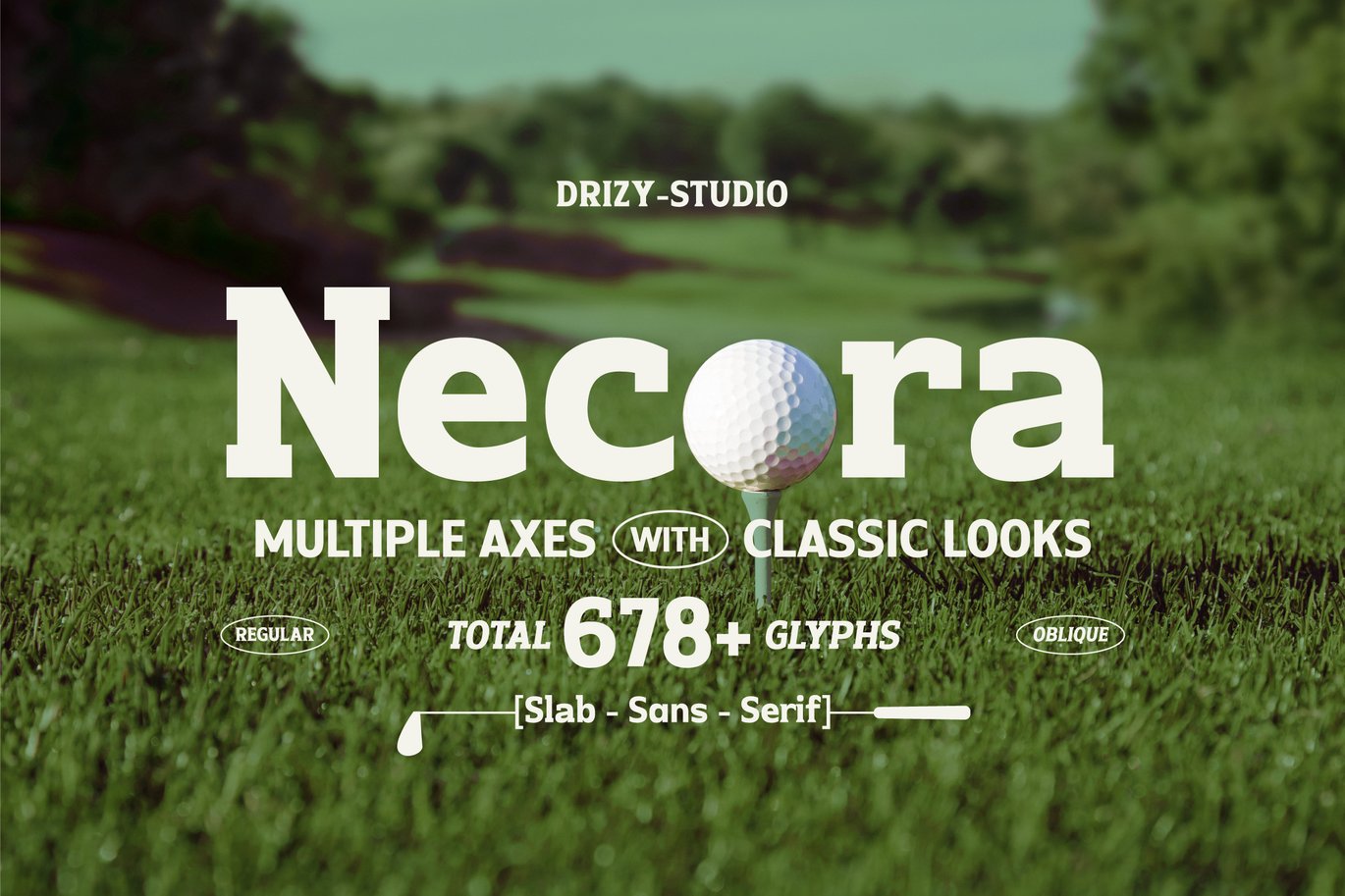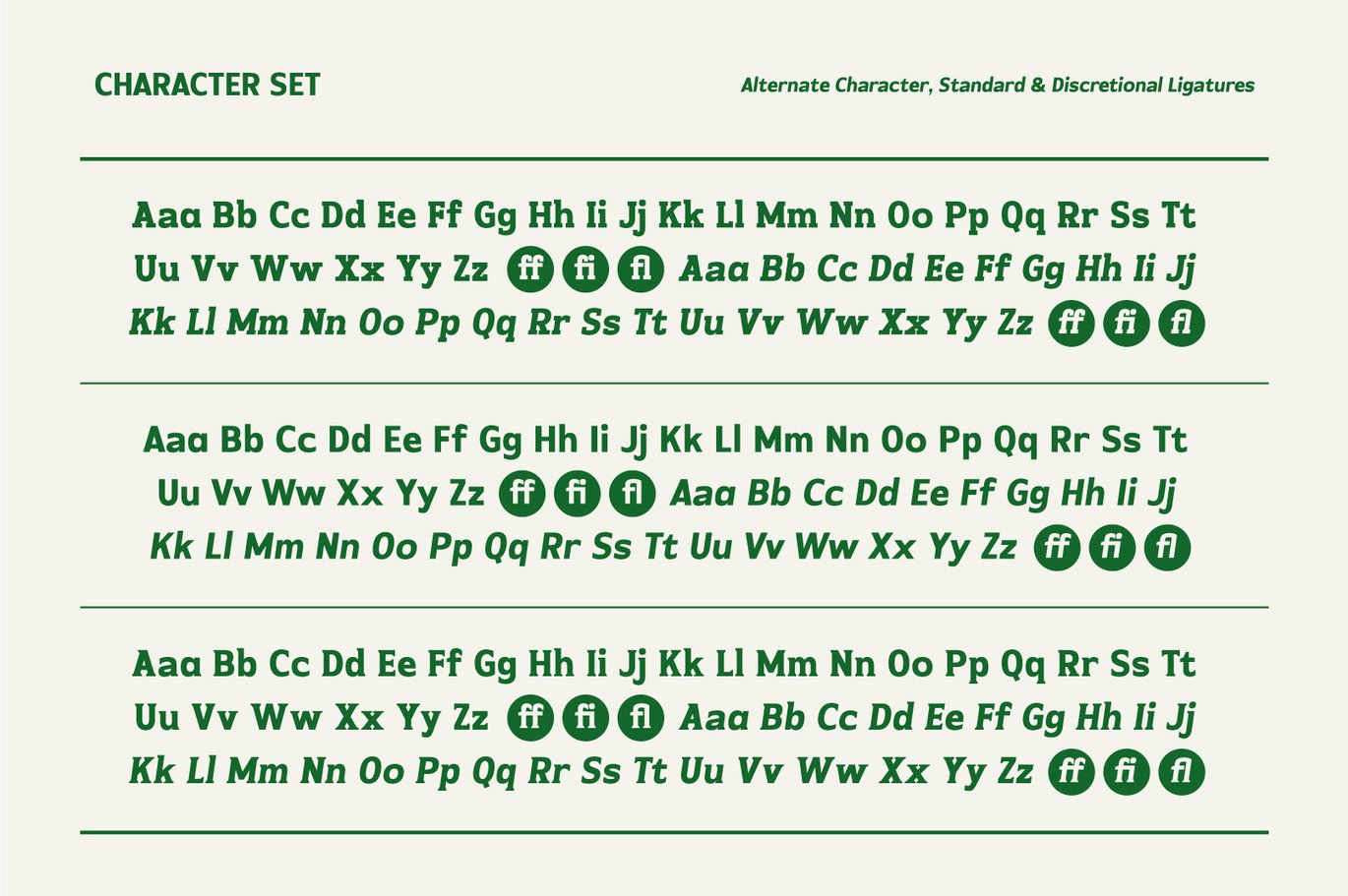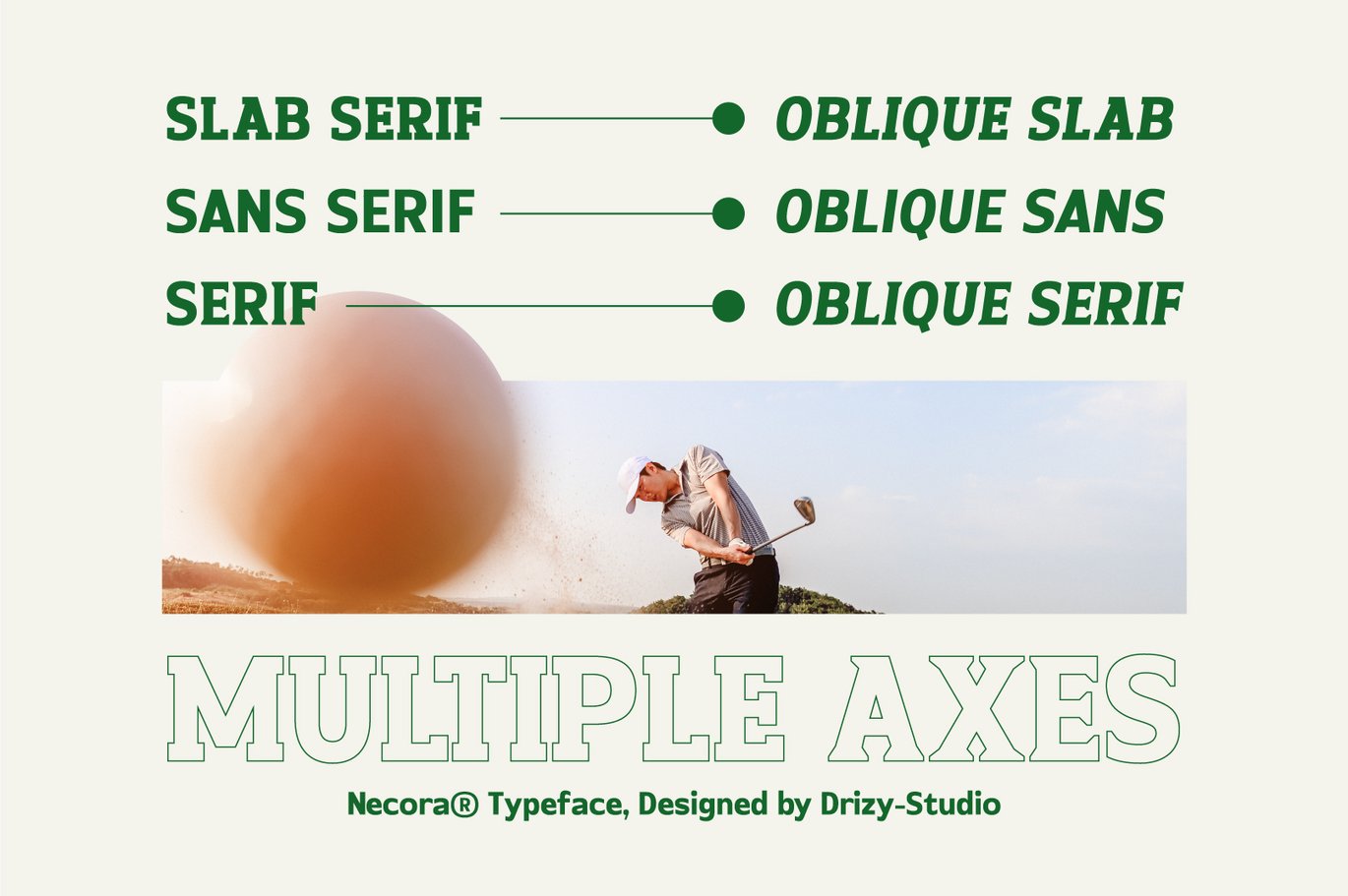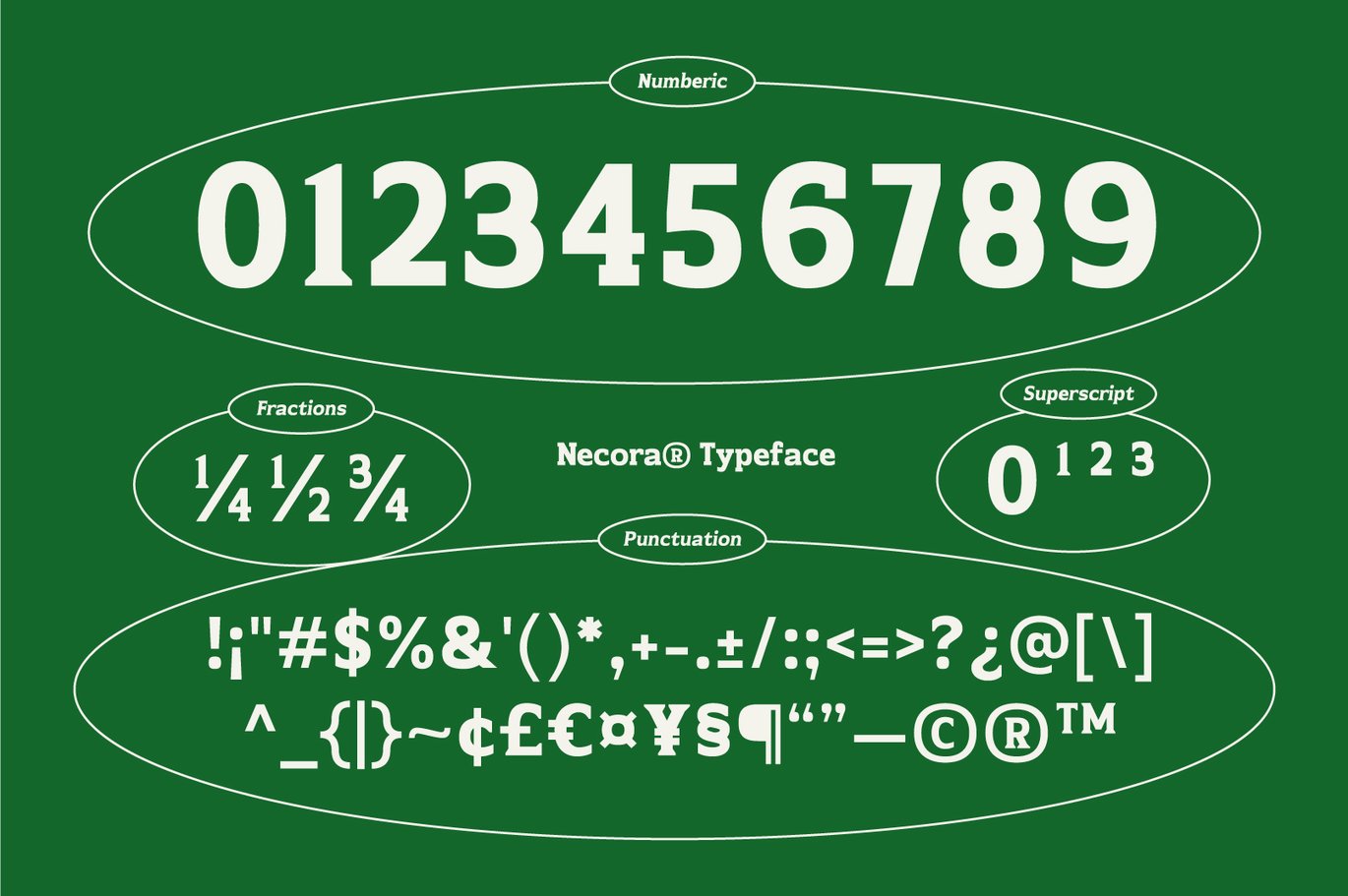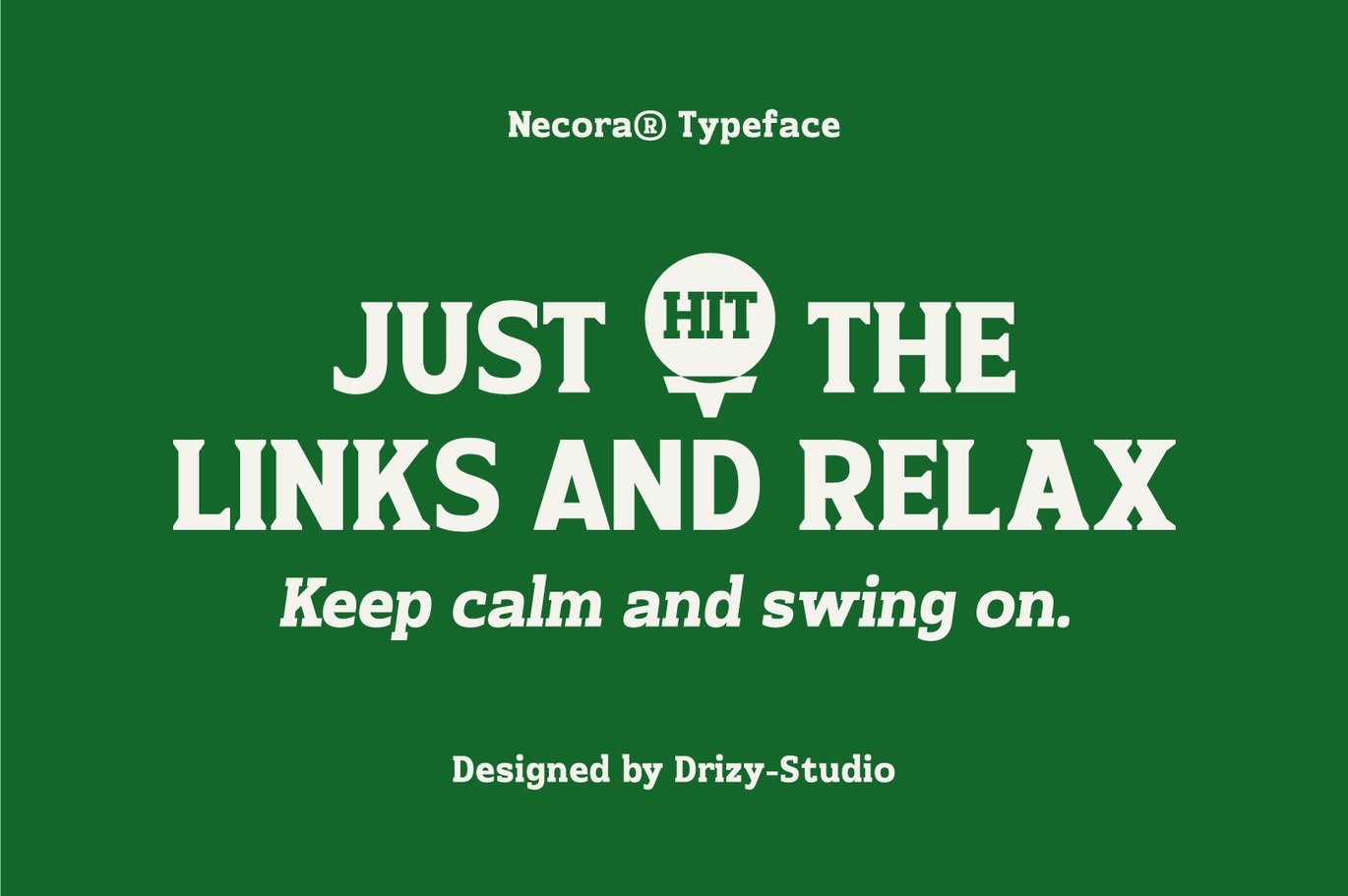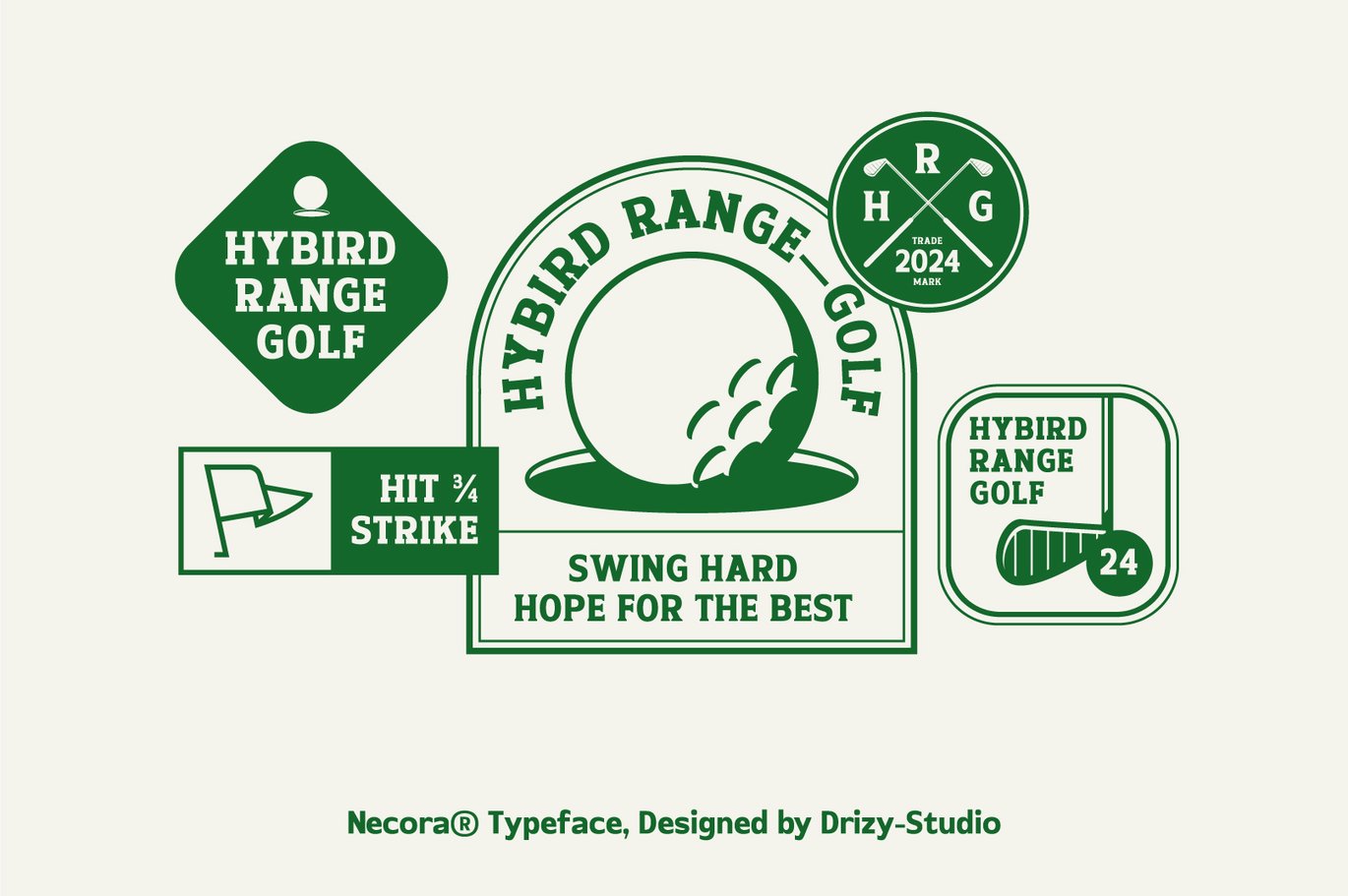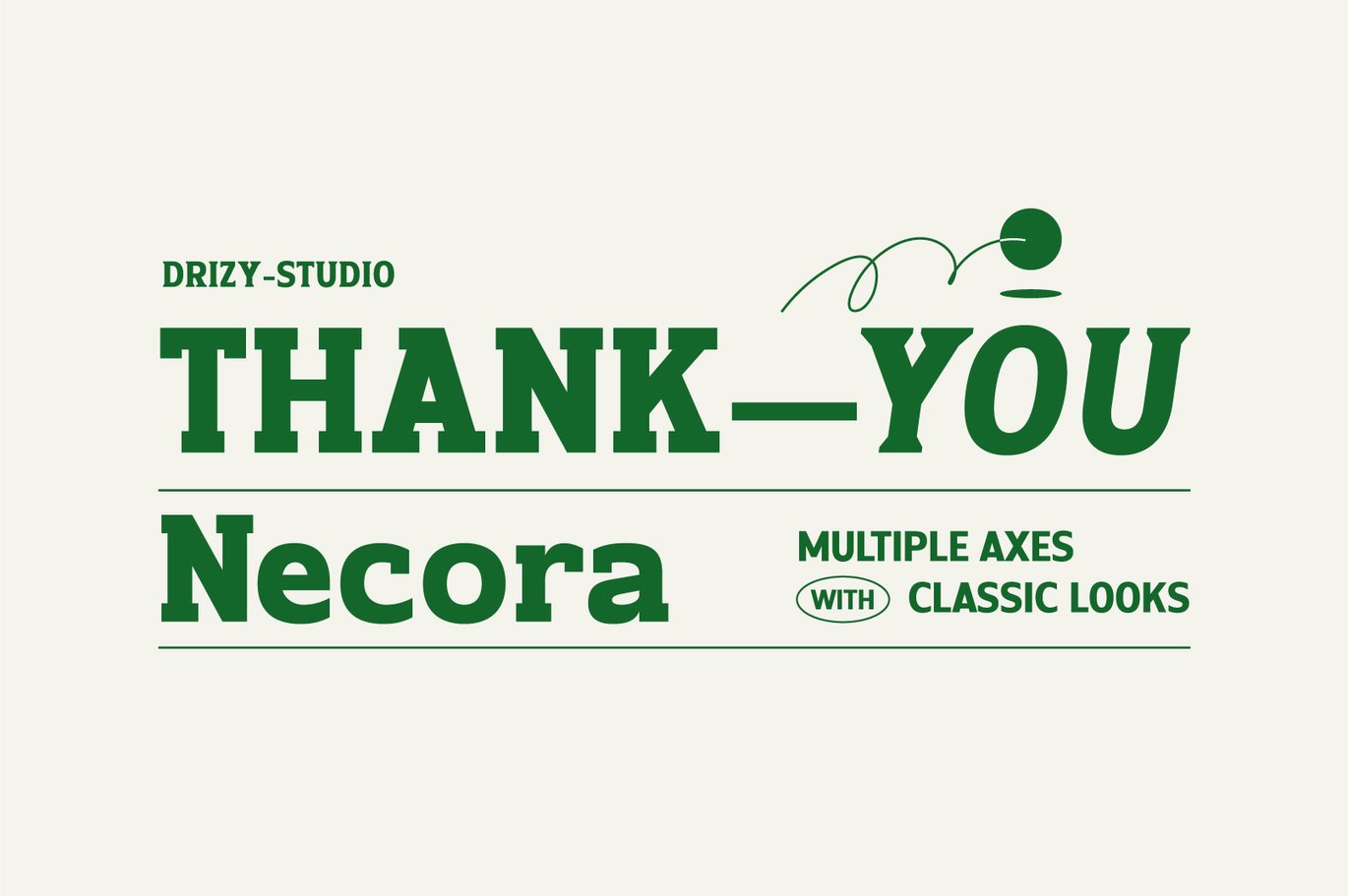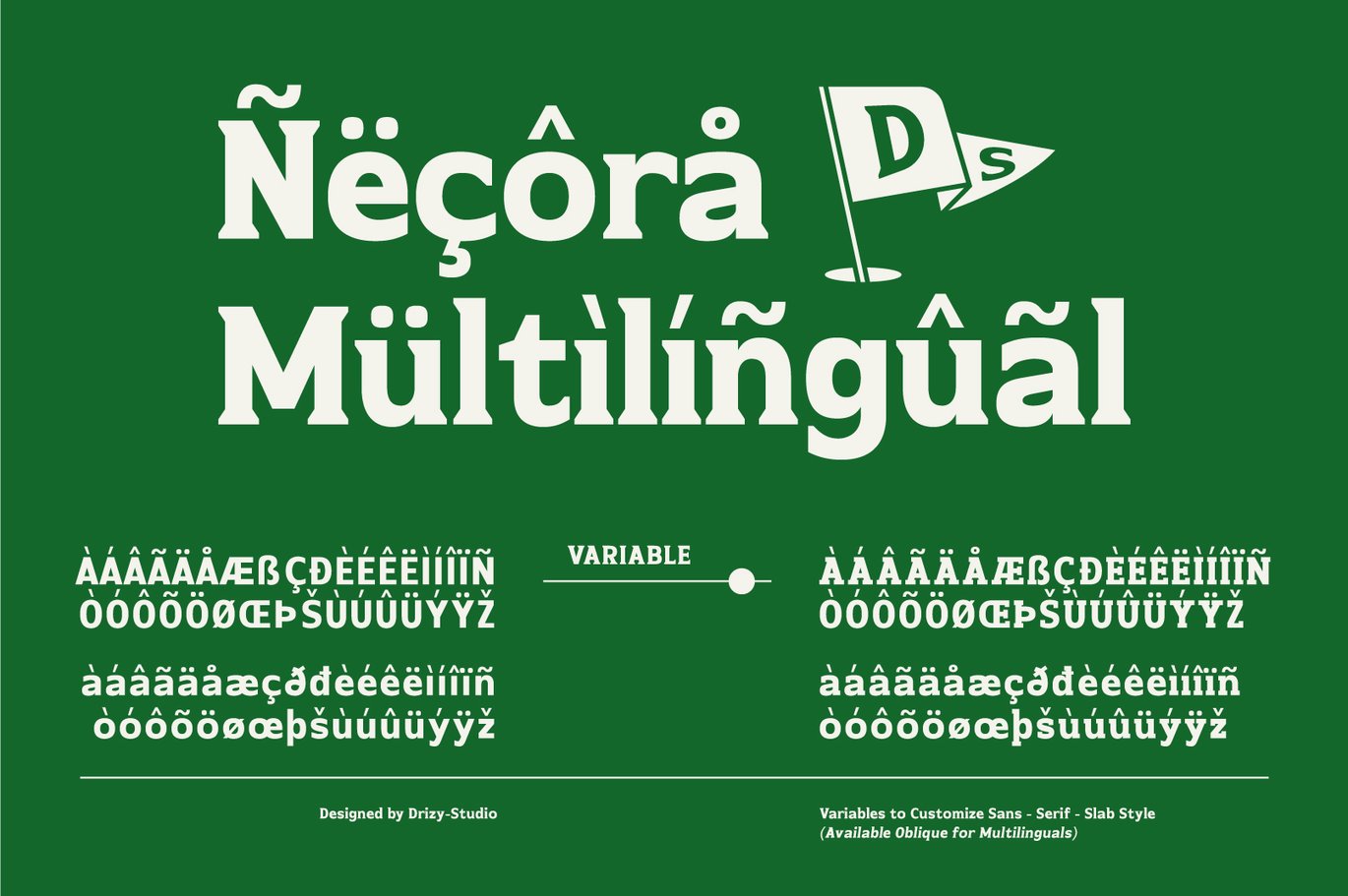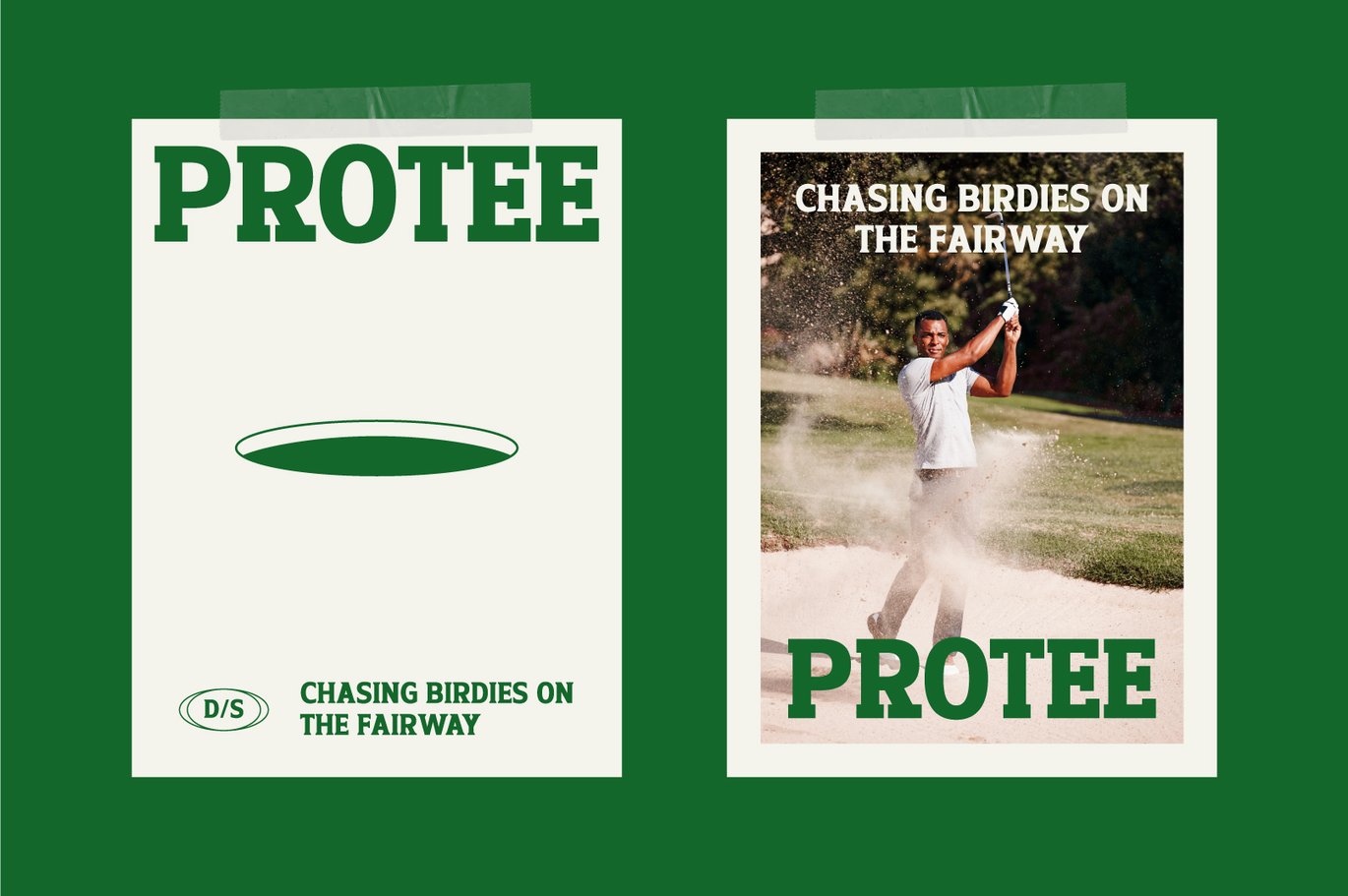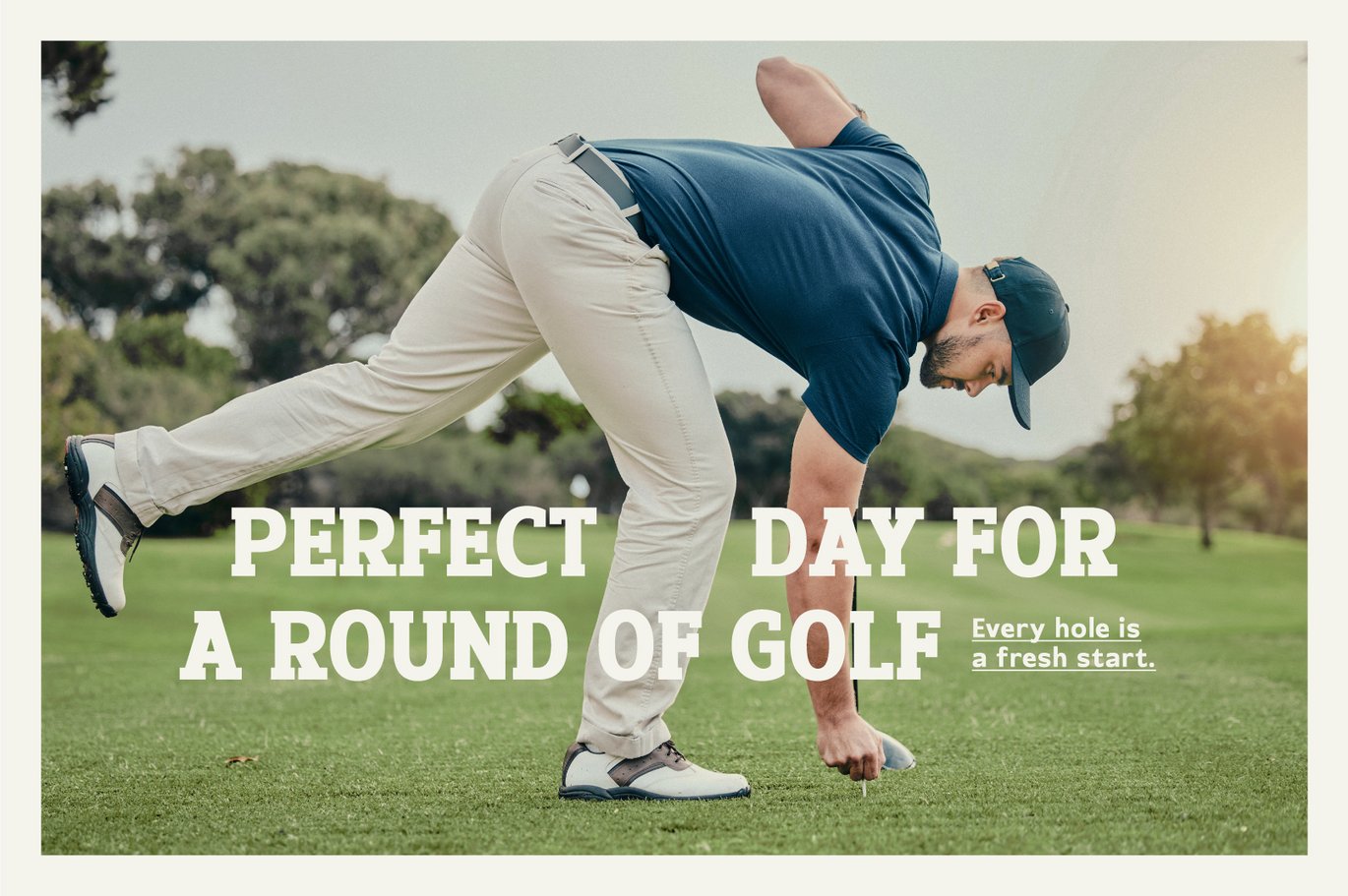
Necora – Multiple Axes Classic Font
Necora is a font exudes timeless elegance and sporty sophistication with GOLF – ELEGANT SPORT stands out balanced blend of timeless refinement and athletic energy, making every text appear both authoritative and engaging. Designed with multiple axes, it blends classic typographic elements with modern nuances, making it ideal for projects that require a balance of tradition and contemporary style. Its sleek lines and carefully crafted curves ensure clarity and readability across various design contexts, from editorial layouts to branding and signage. Whether used in print or digital media, this font stands out with its versatility and aesthetic appeal, embodying a sense of refinement and dynamic energy.
Necora features:
- Character Set (Uppercase & Lowercase)
- Punctuation & Numbers
- Variable: Sans, Serif, Slab Style
- Standard & Discretional Ligatures
- Alternates “a”